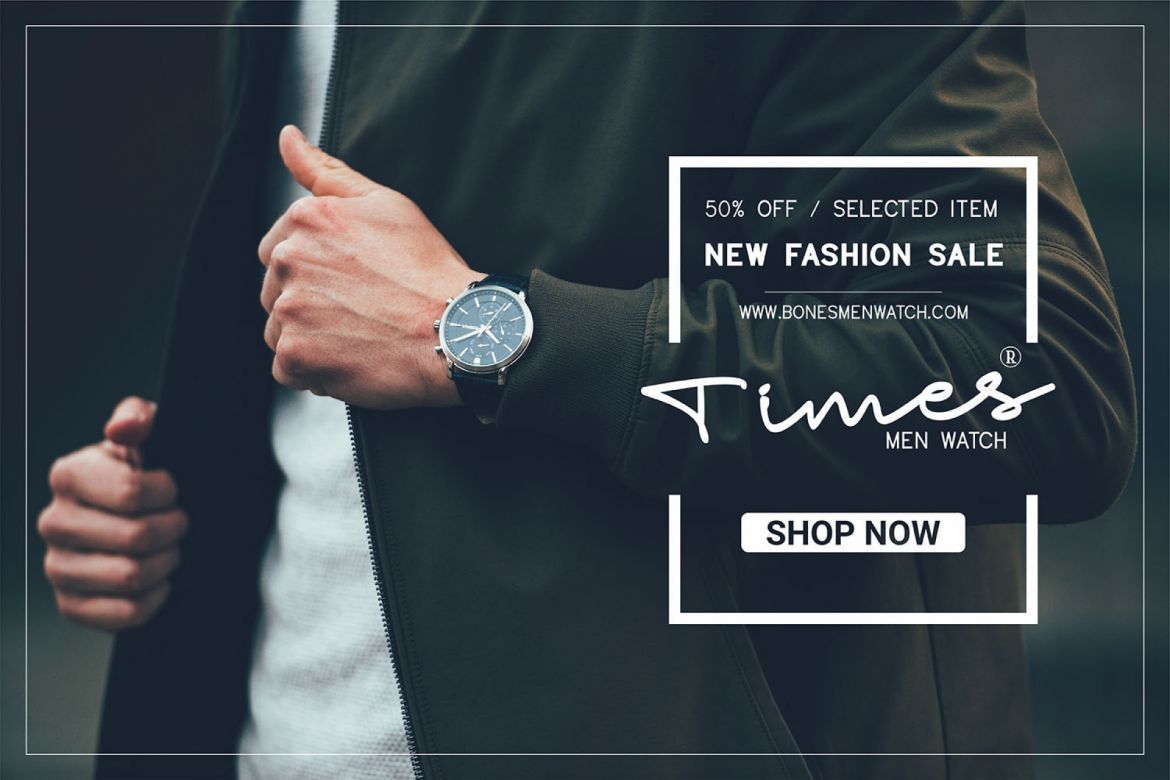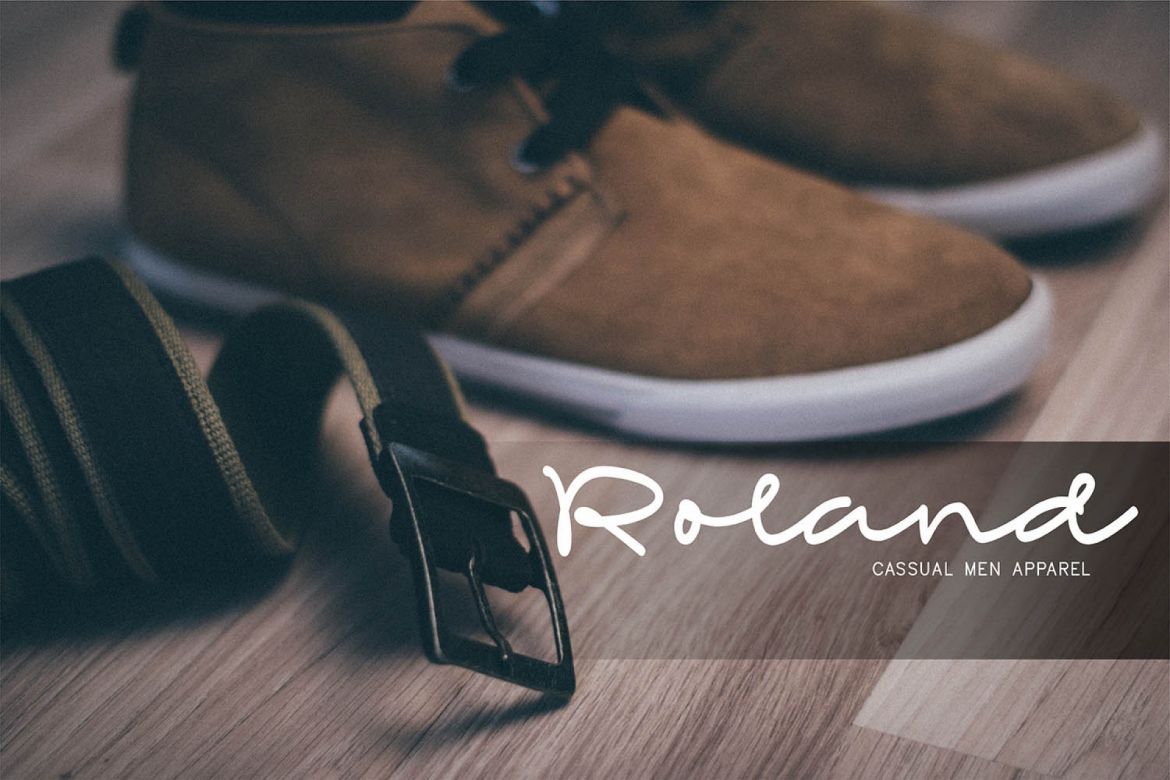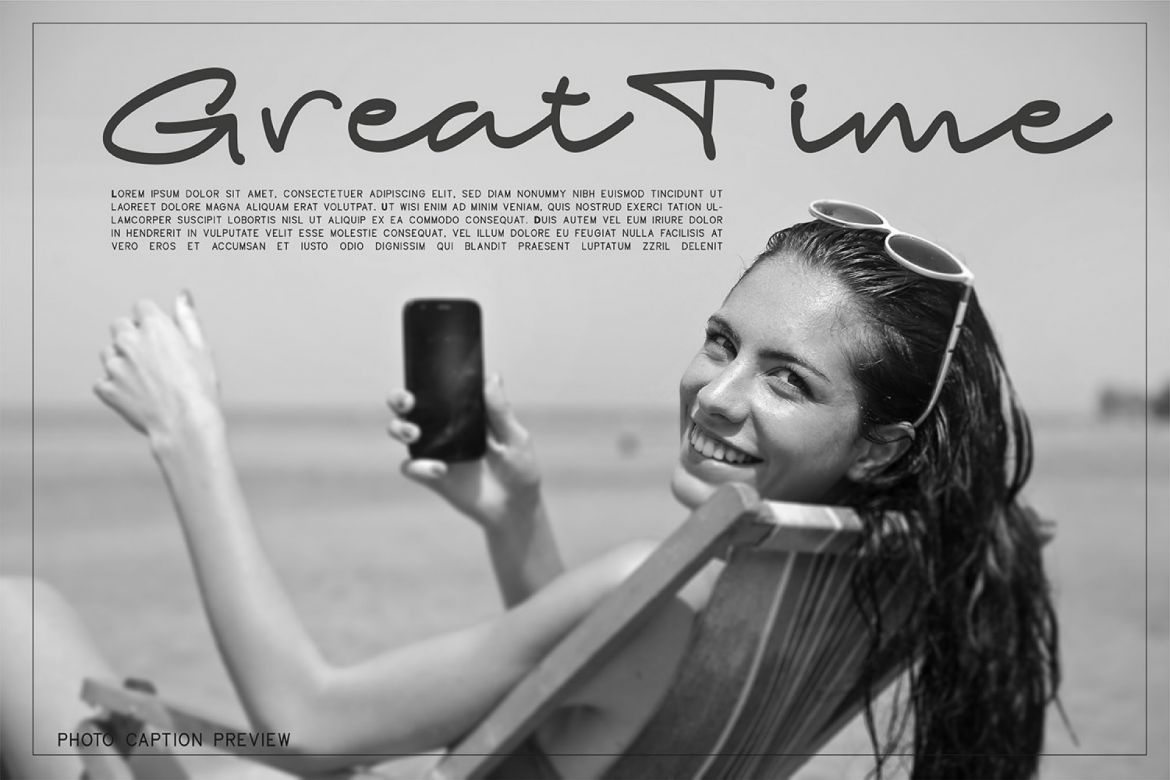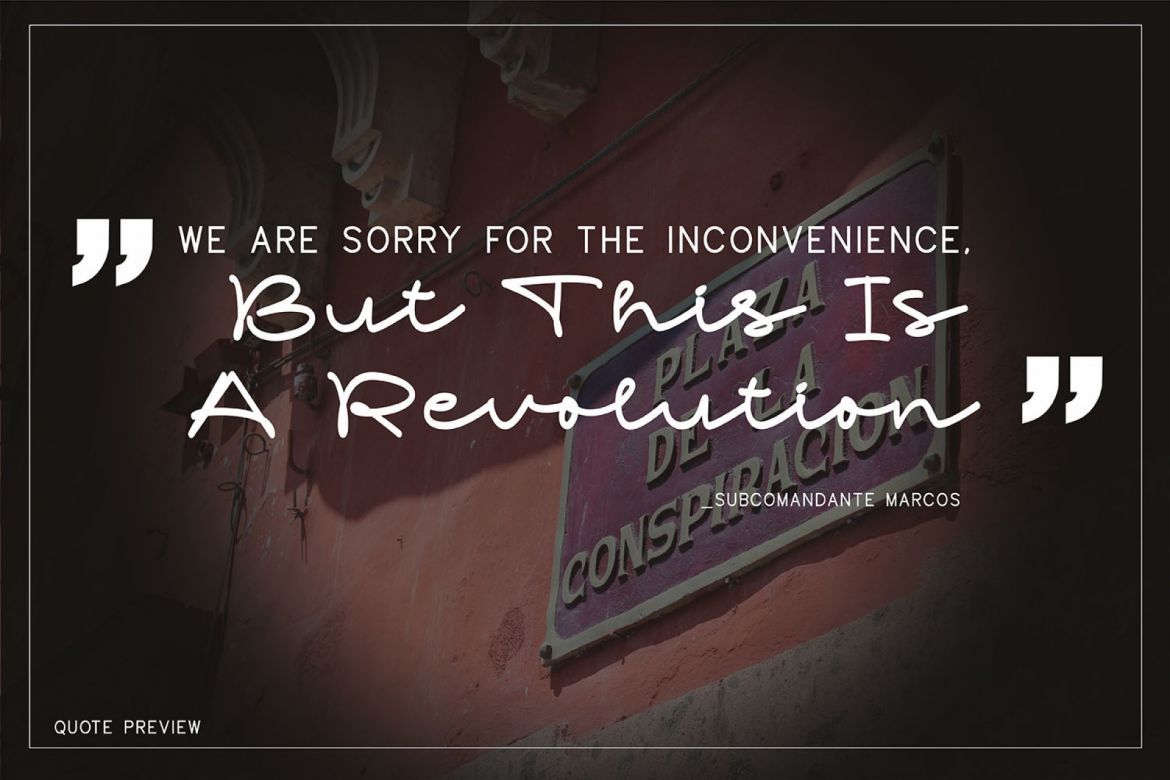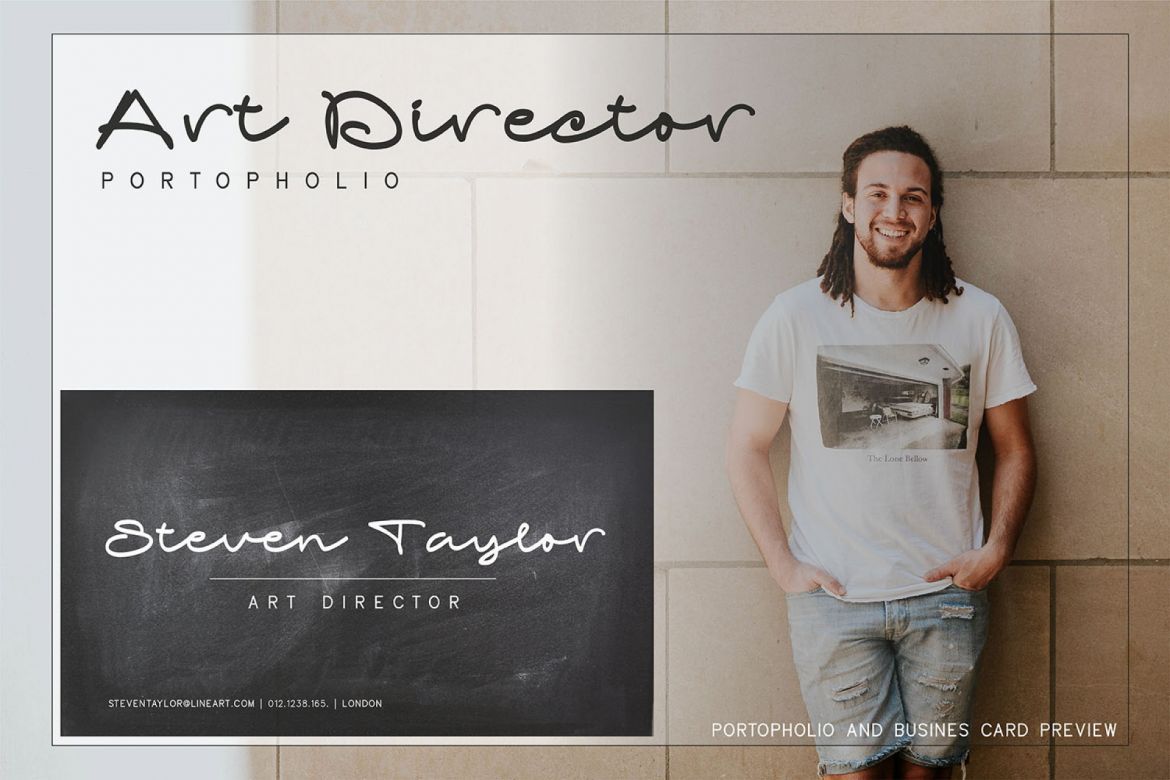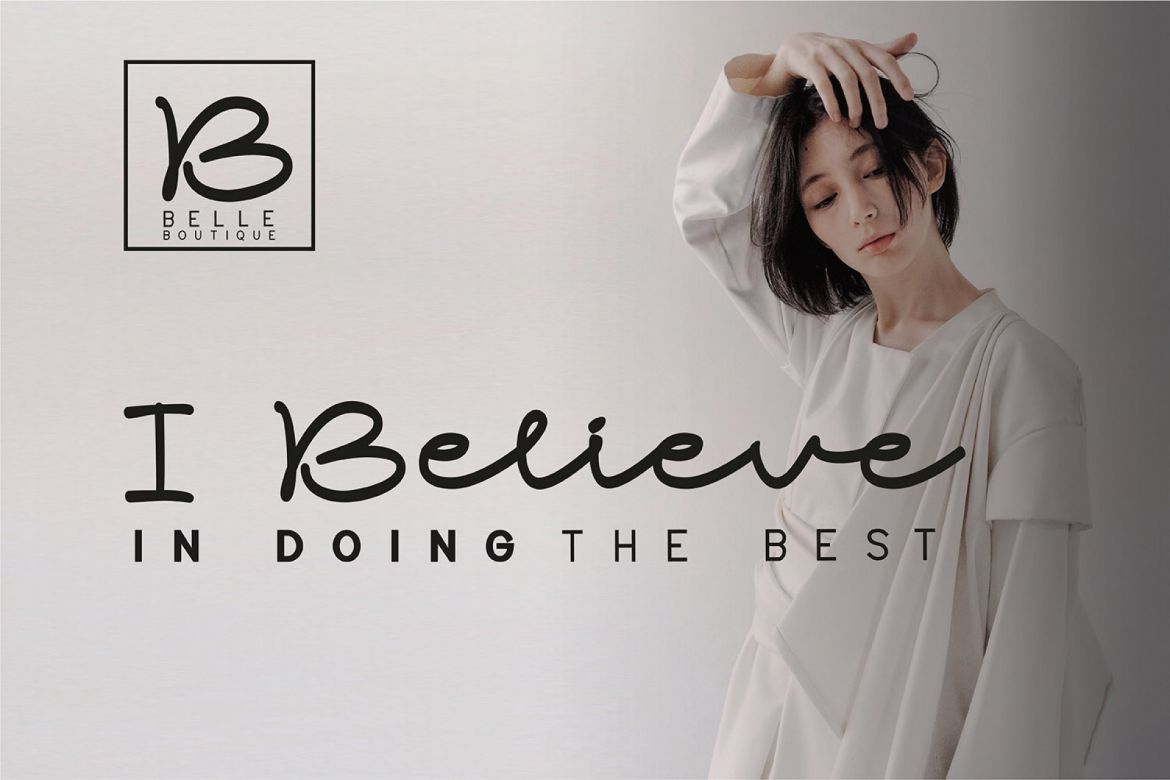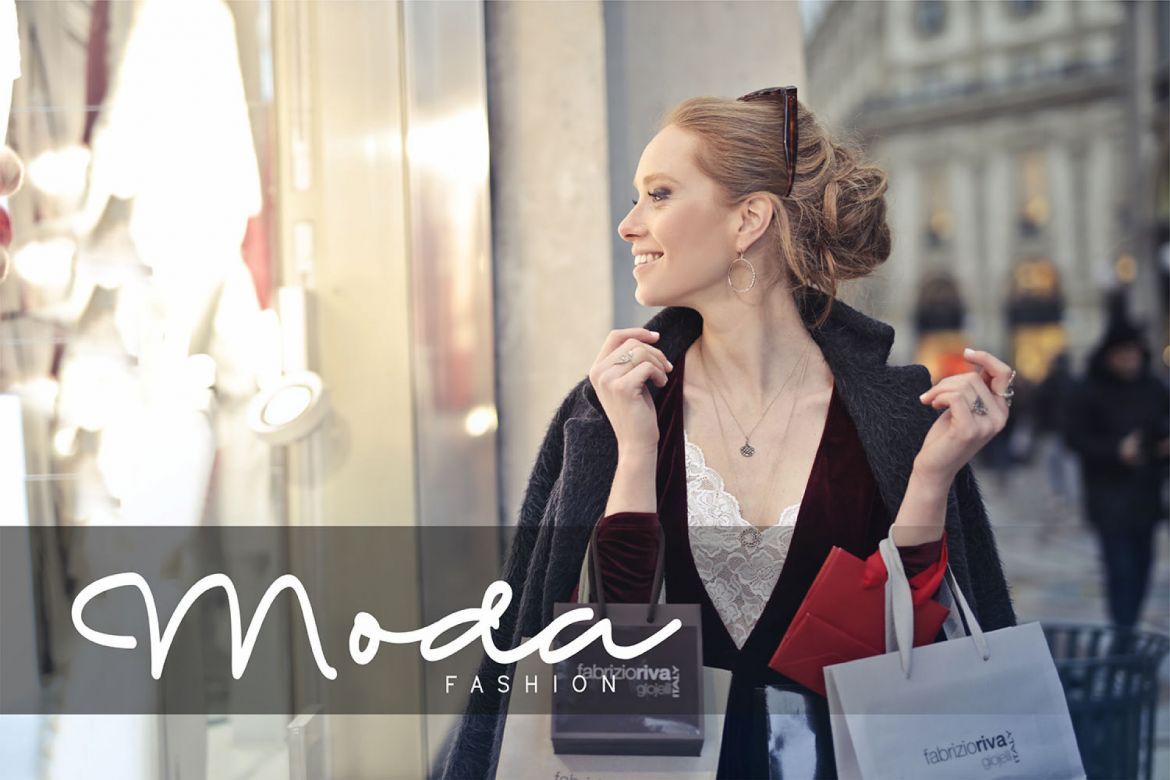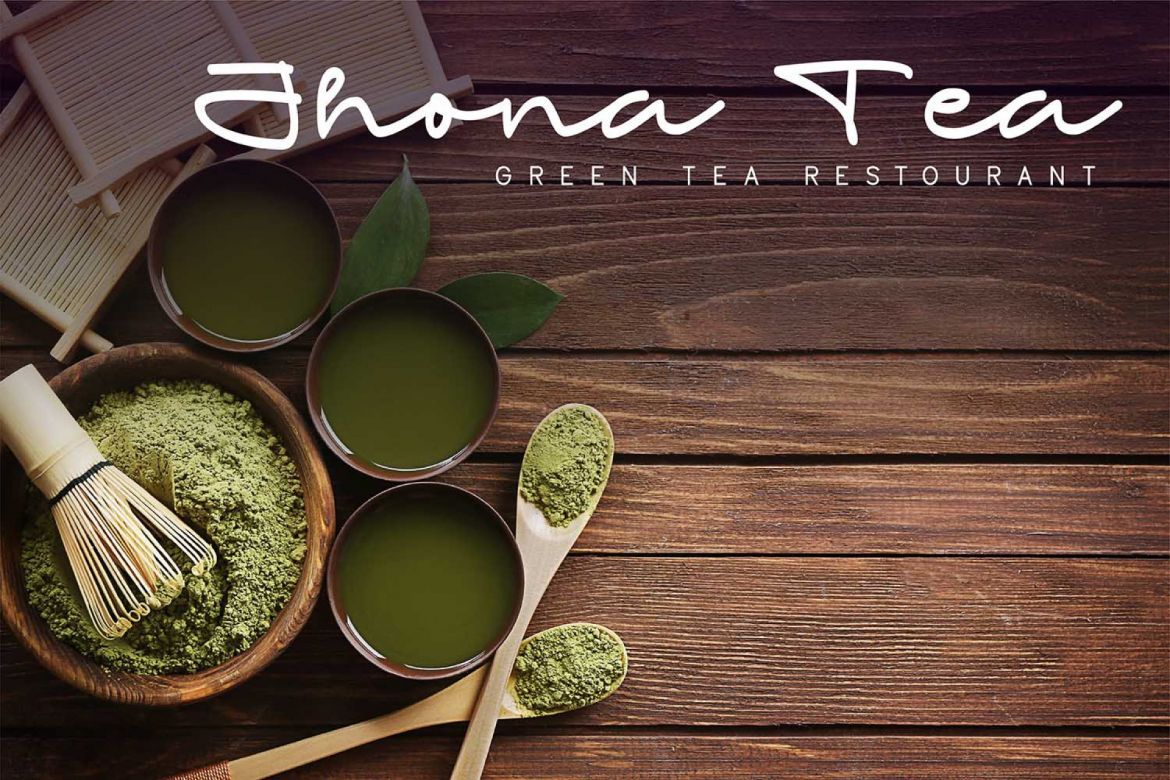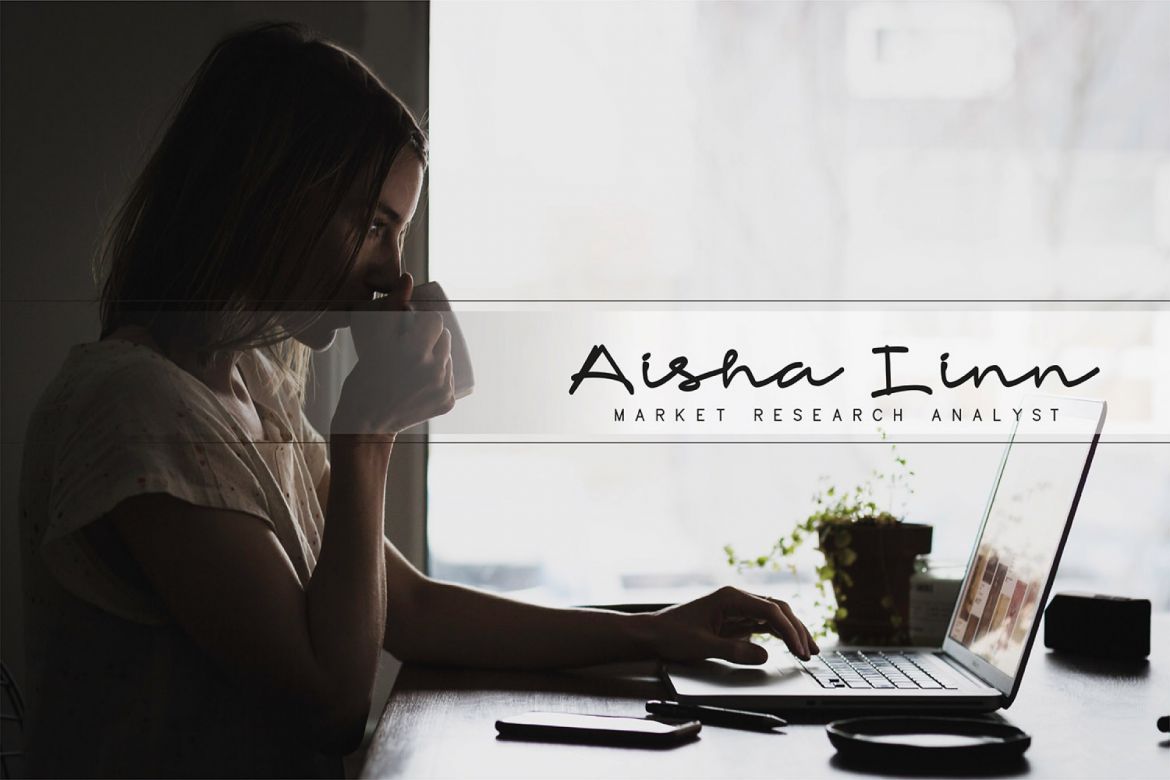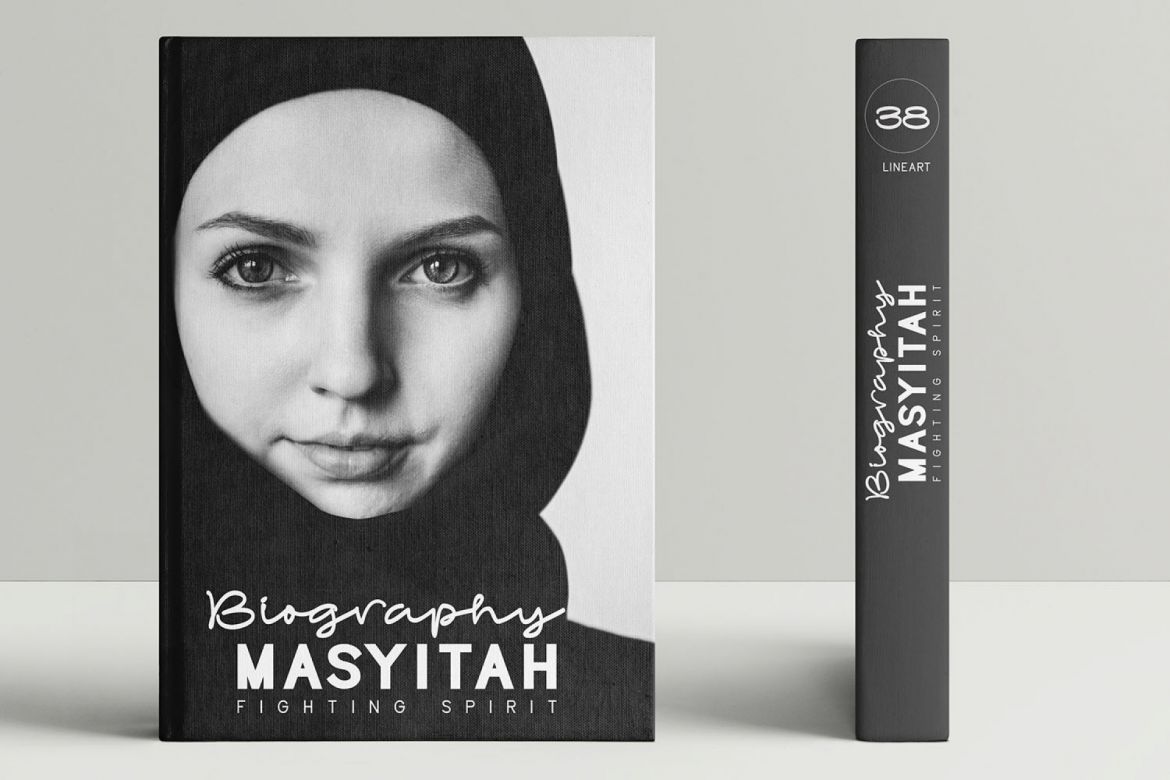
Bonandito Font Duo
Hi all. my new font "Bonandito Thing". This font is the package of two-weight sans and cassual hand writing script. This font designed to give a fashionable and contemporary pair. 'Bonandito Thing' is a good choise for your stylish design project, including logos, book cover, branding, magazine, Photo text, social media, advertisement and product design.
What You Get? 'Bonandito Script'; a classy fast flowing signature font, containing upper & lowwercase characters, numerald and large range of punctuation. 'Bonandito Sans' ; a stylish modern san font, containing capital uppercase and lowwer case in different weight.